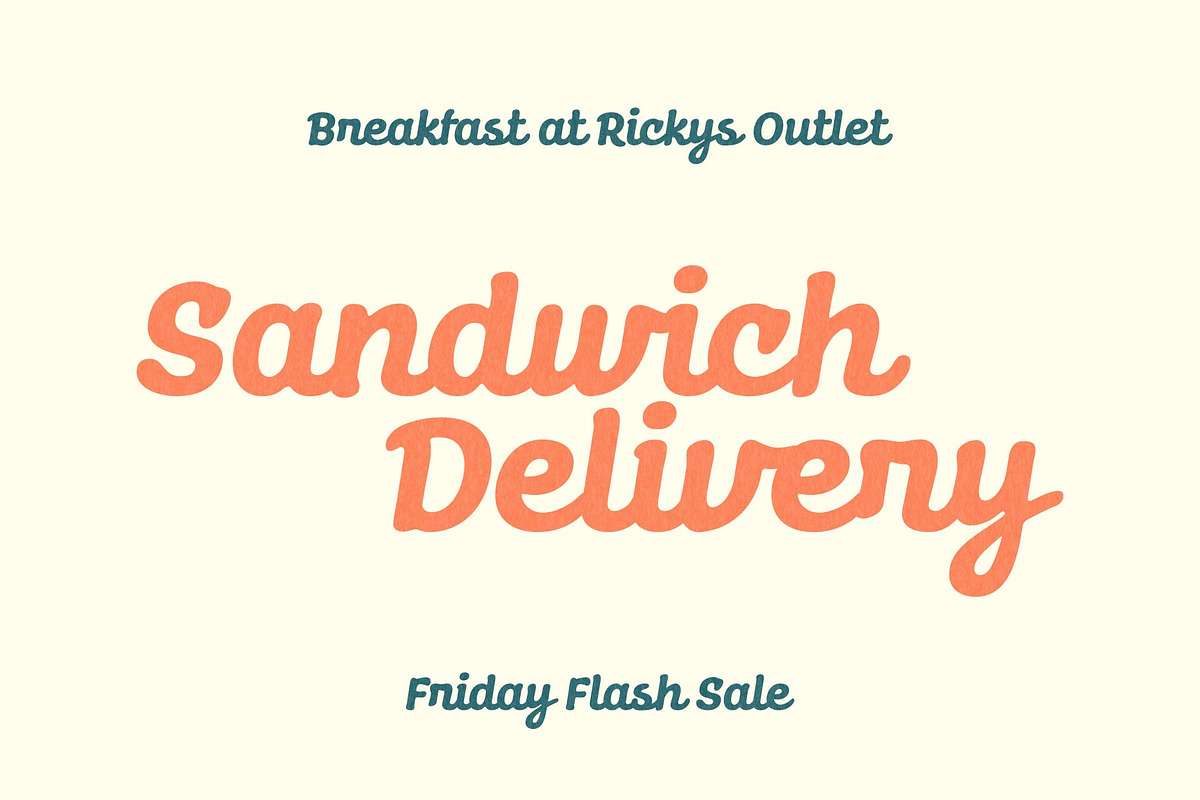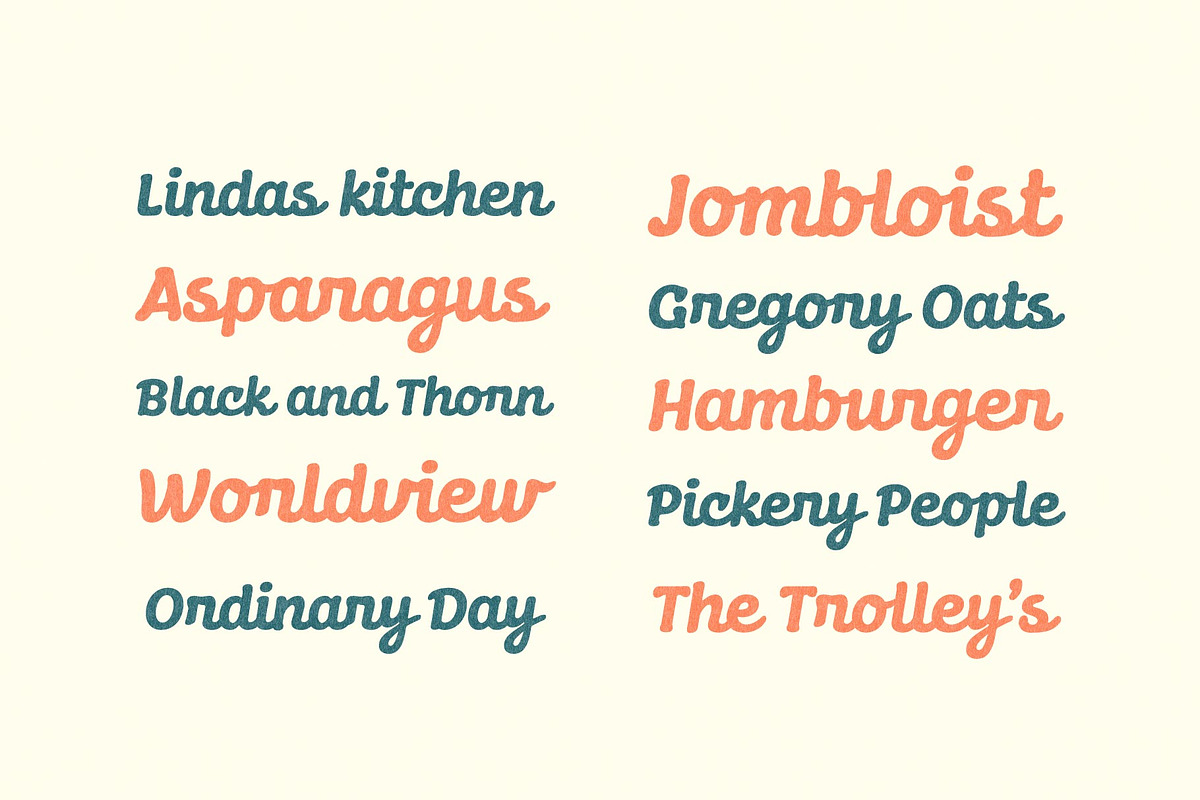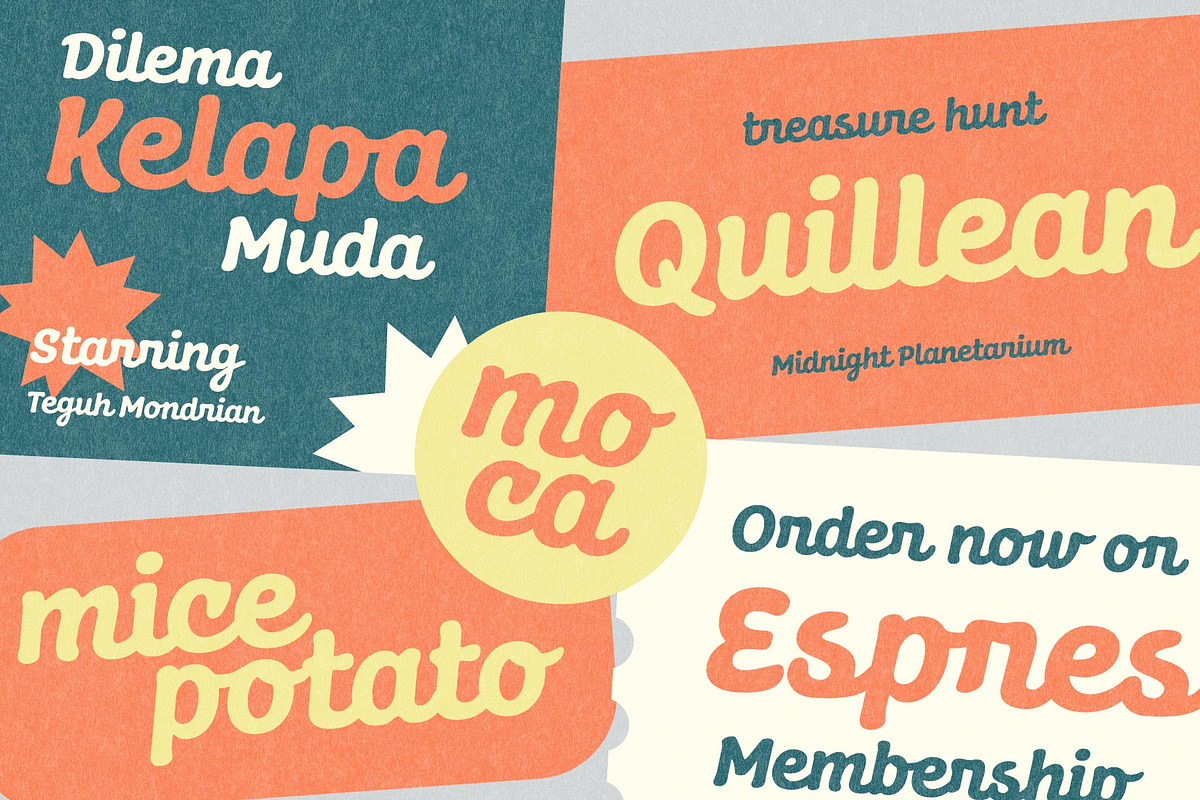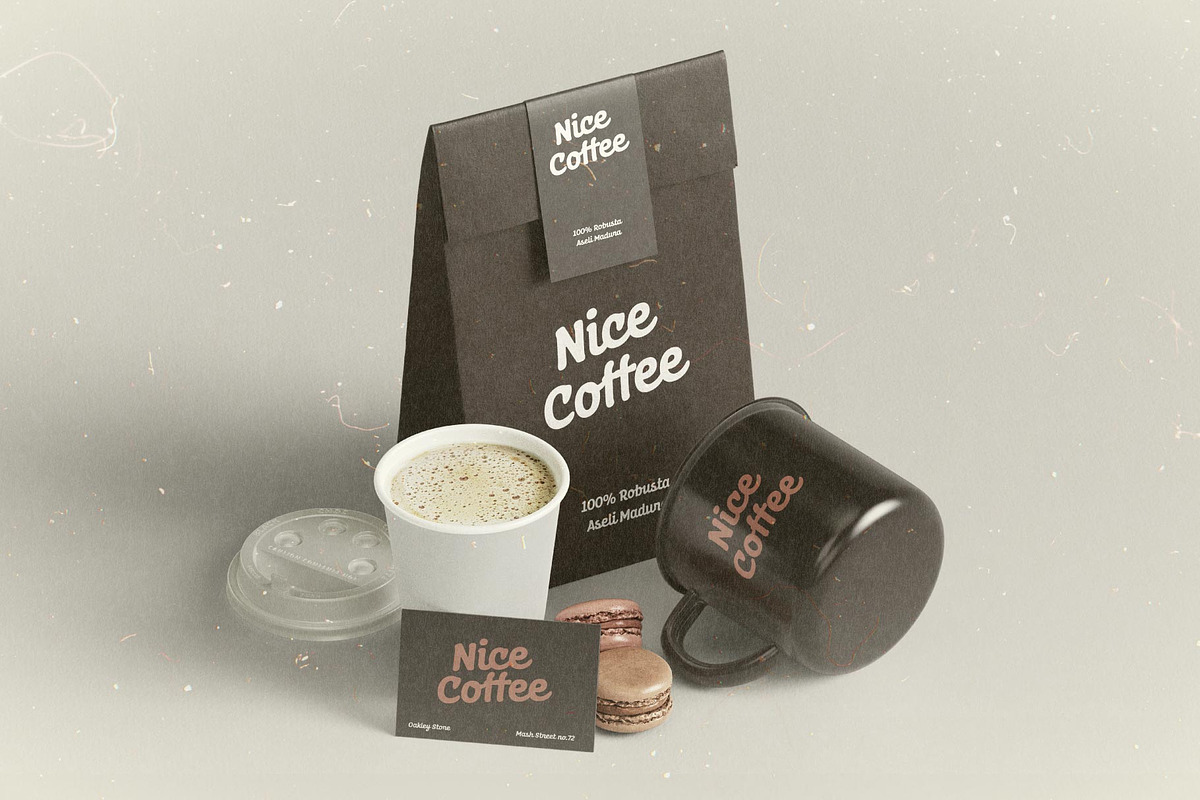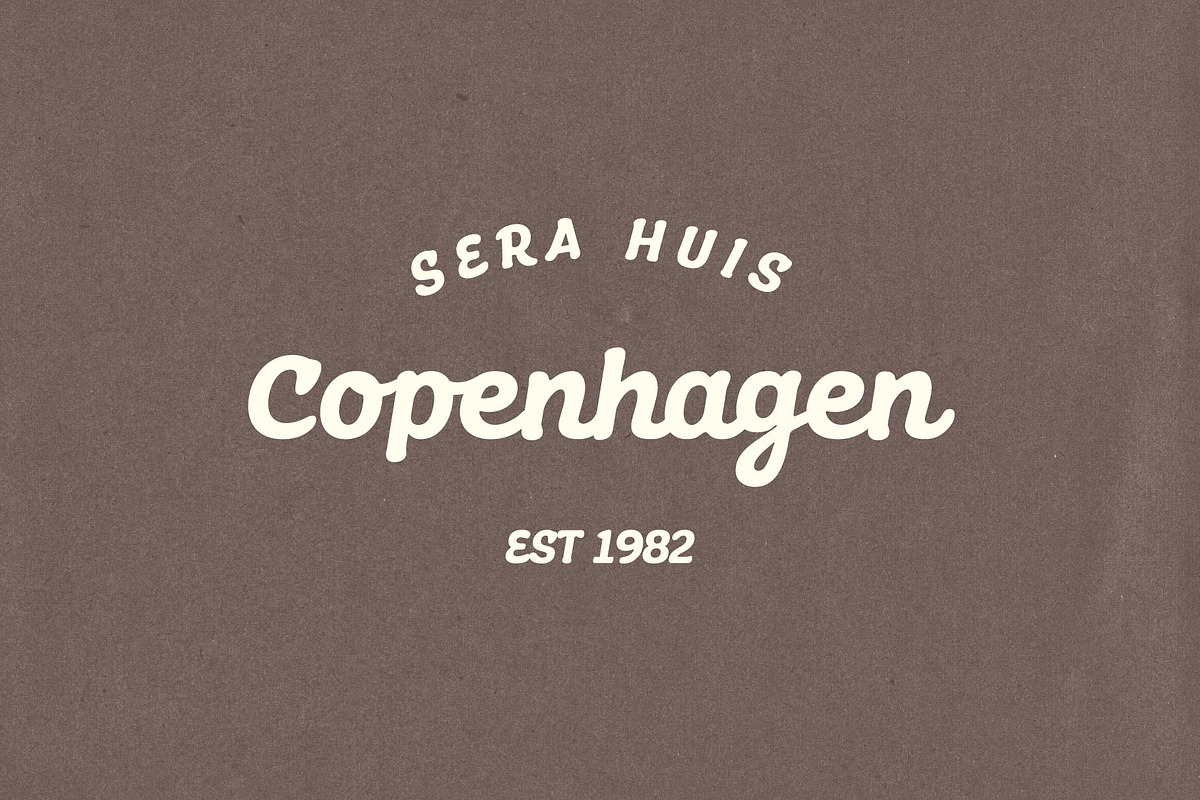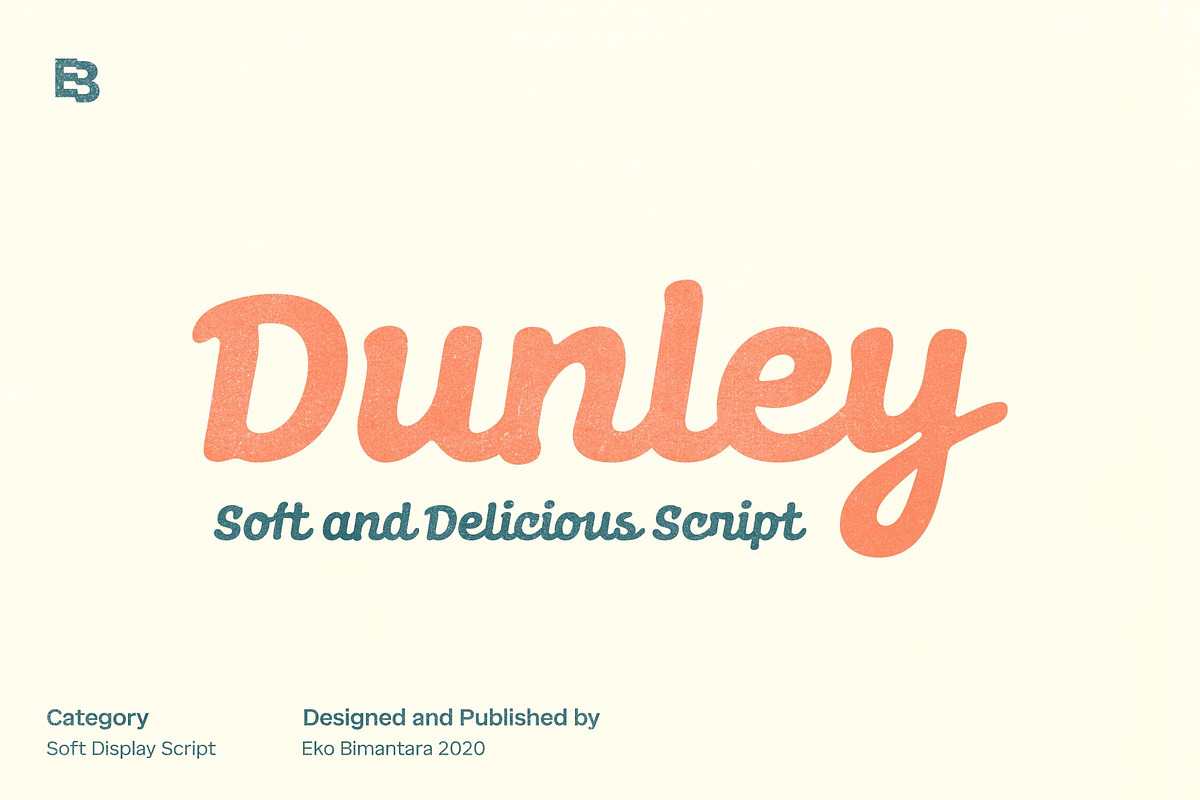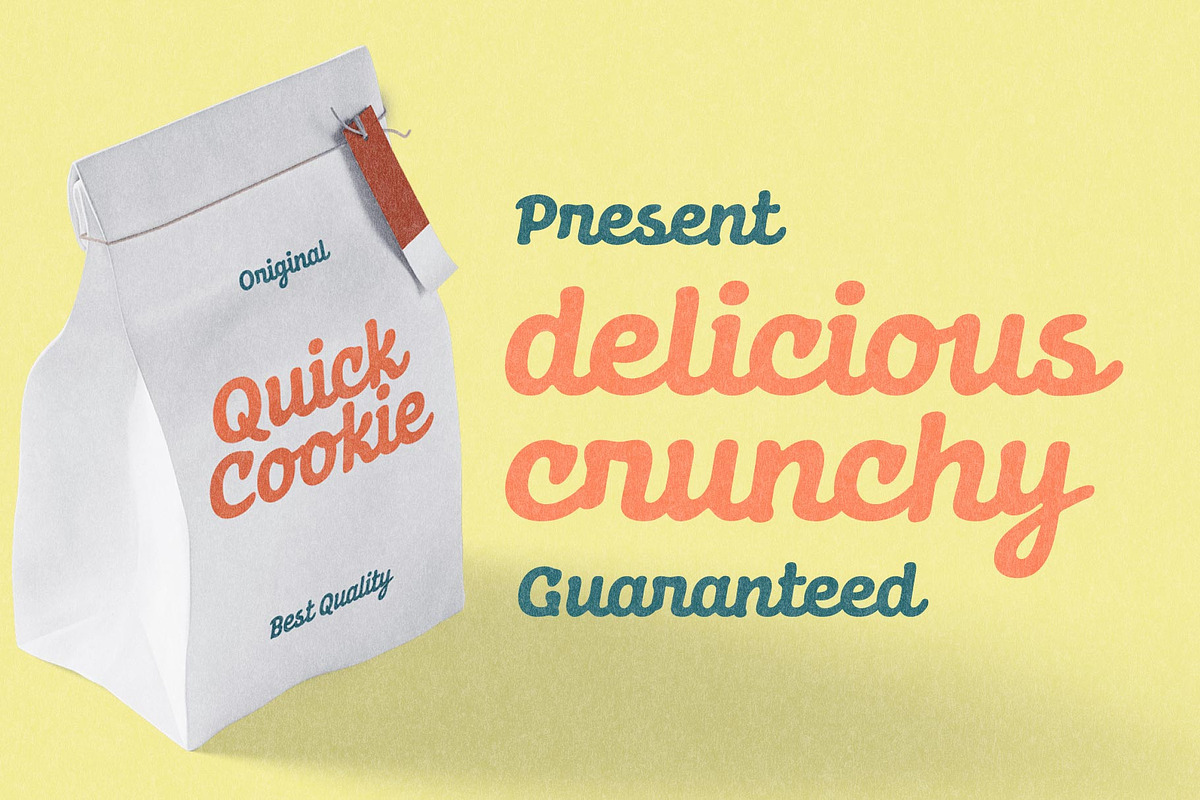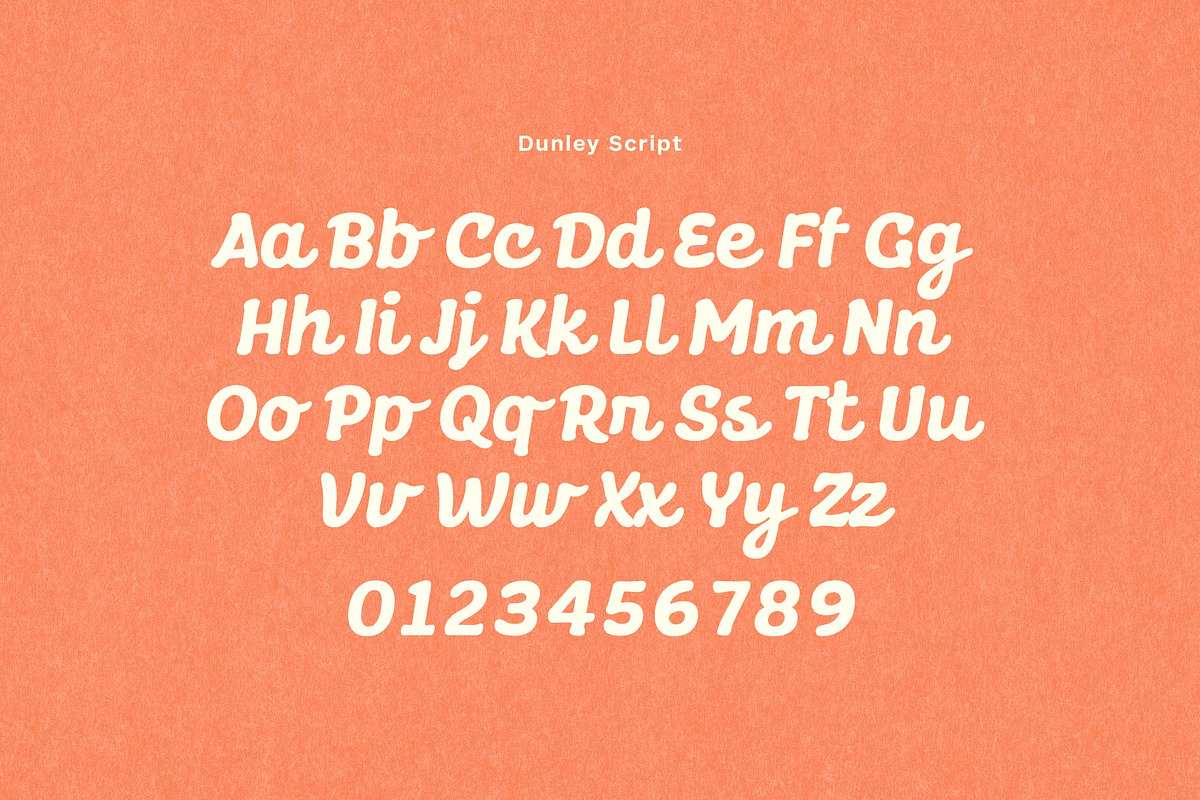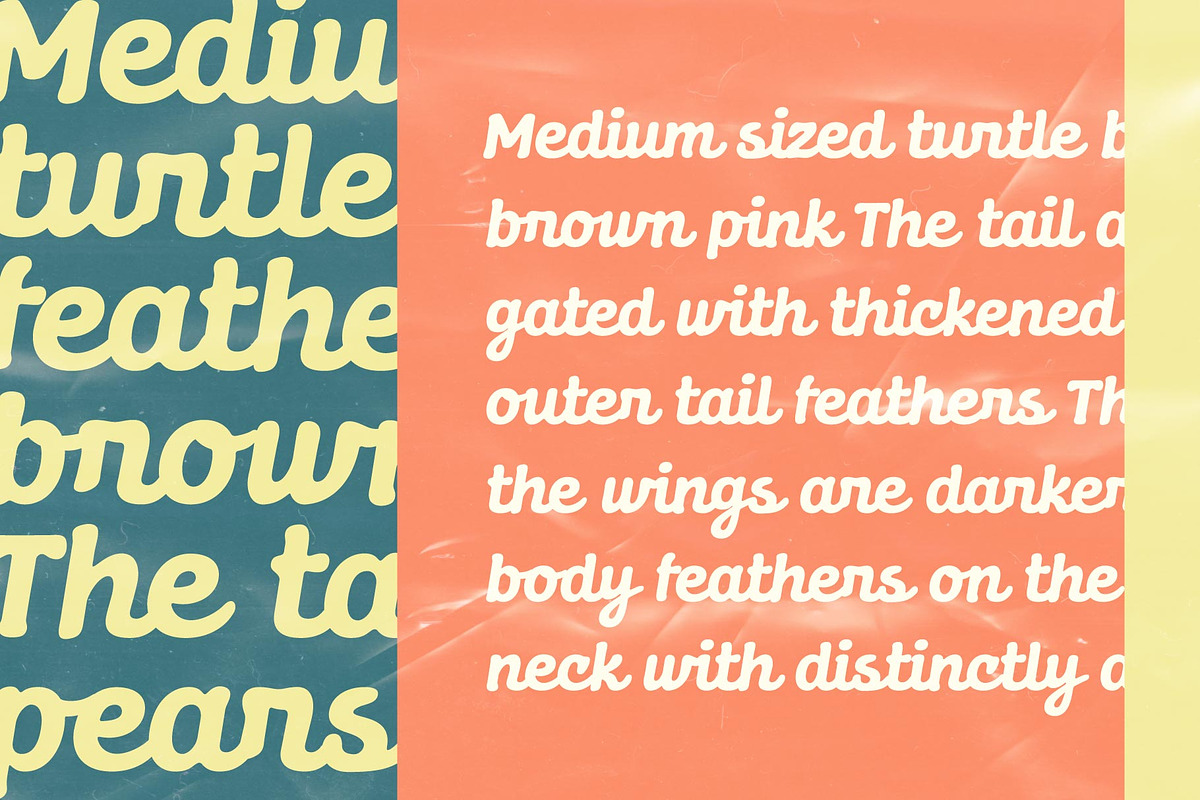
Dunley; Soft Script
Dunley is a soft, expressive script designed for a wide range of creative applications. It works beautifully for branding, large display use, headlines, logos, product packaging, and other visual projects where a warm and distinctive character is desired.